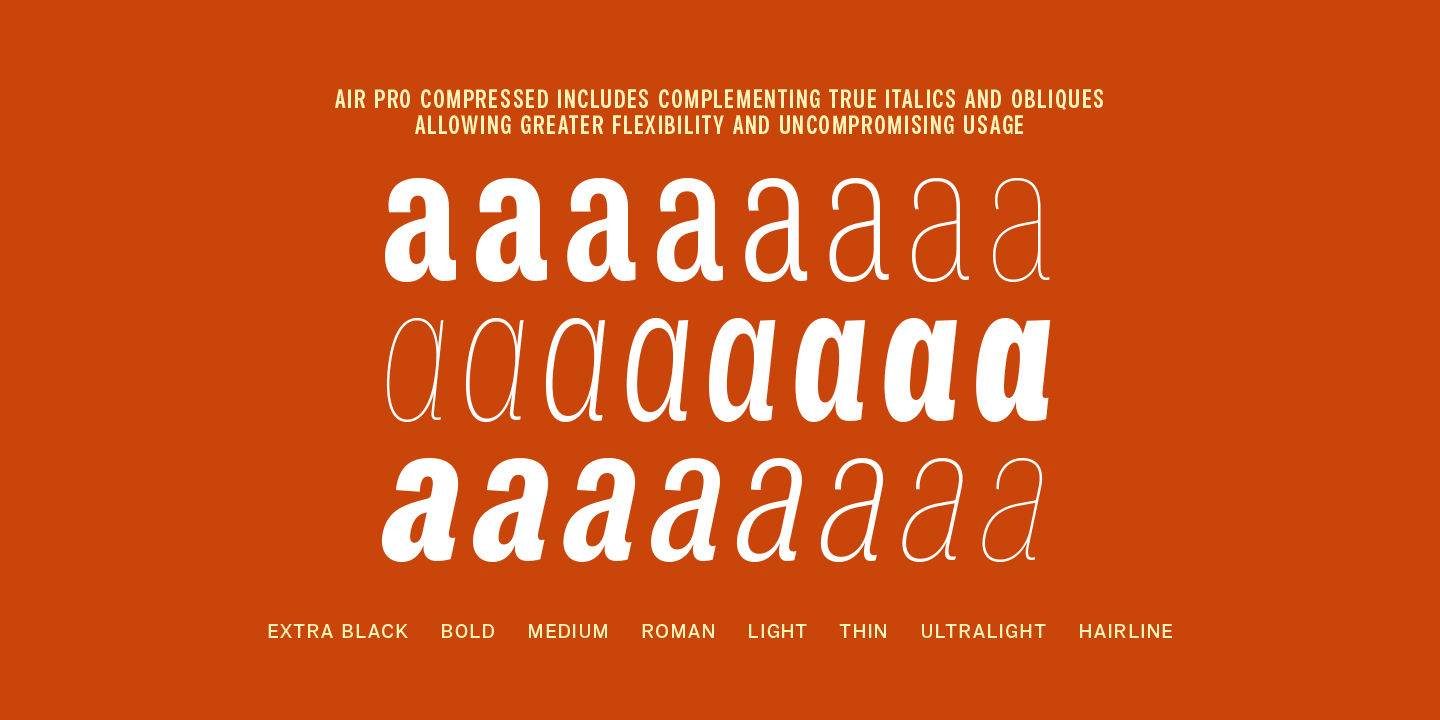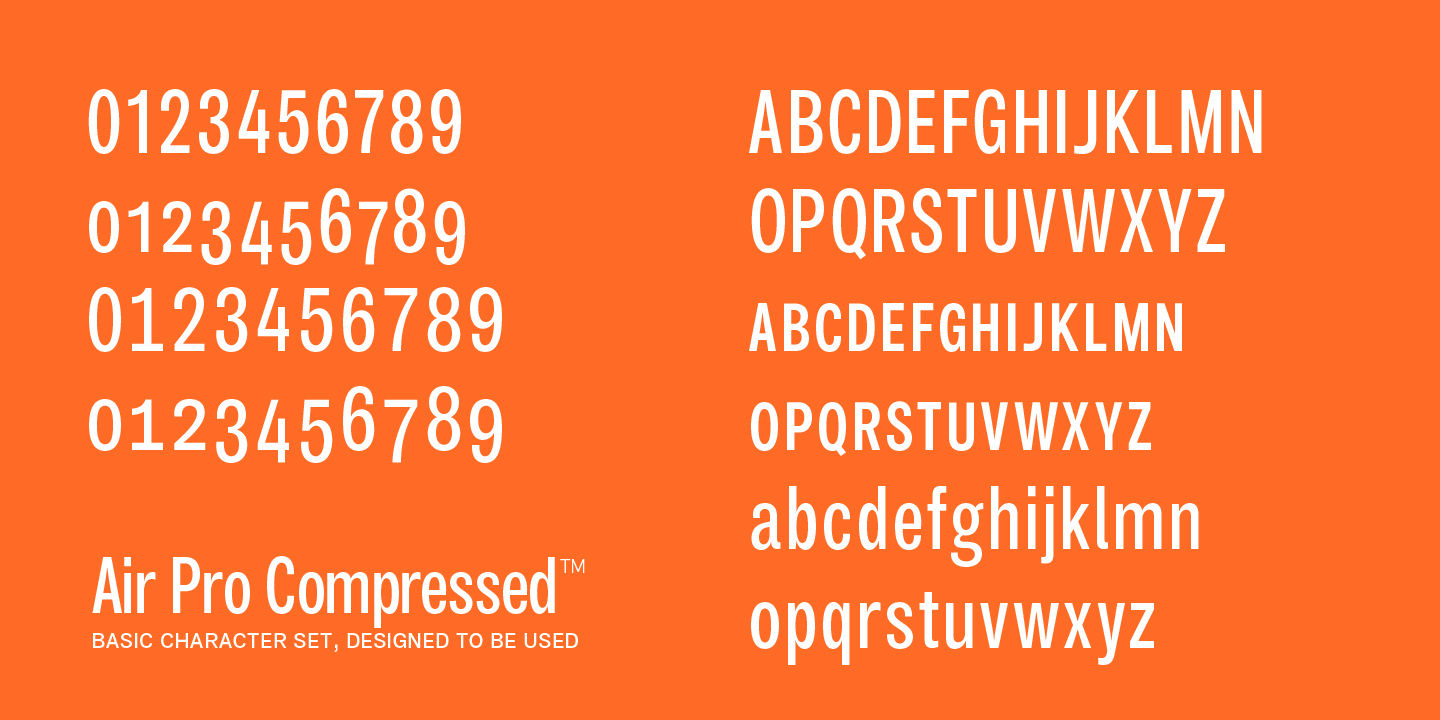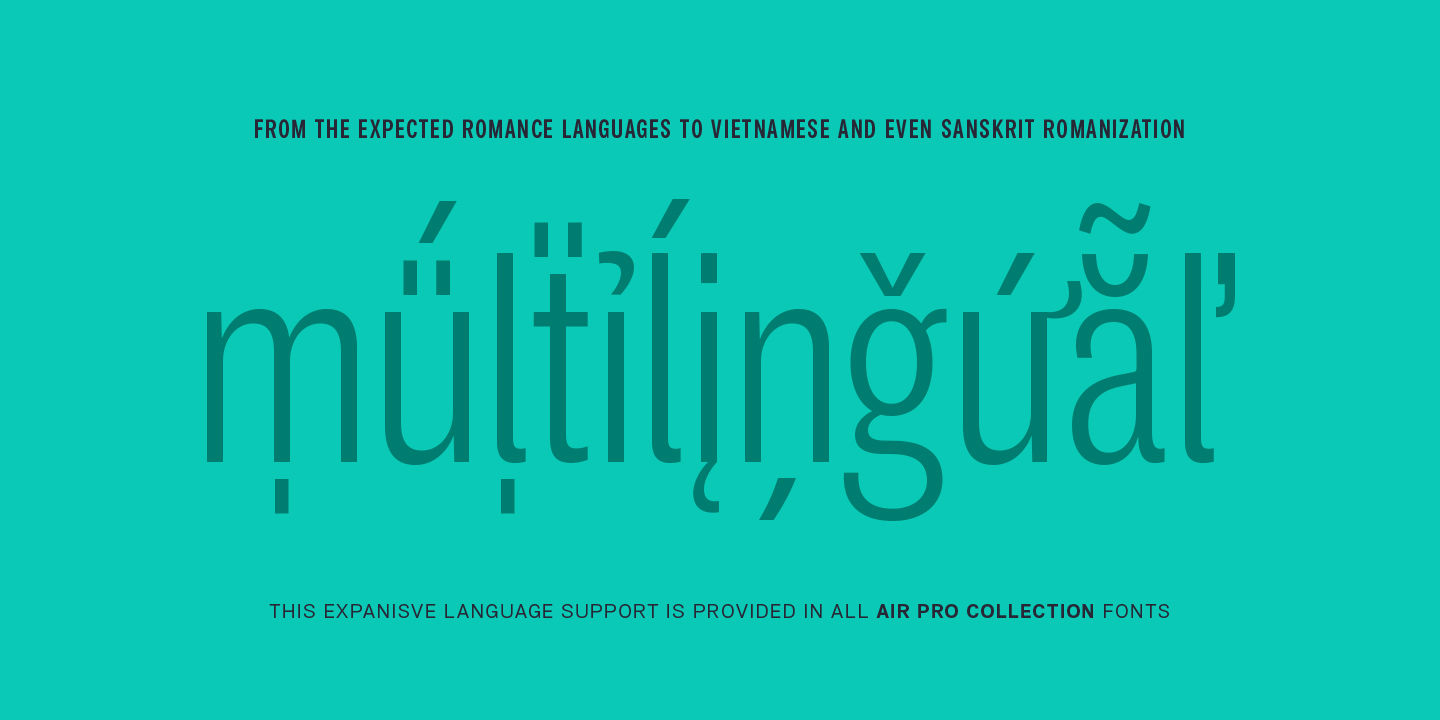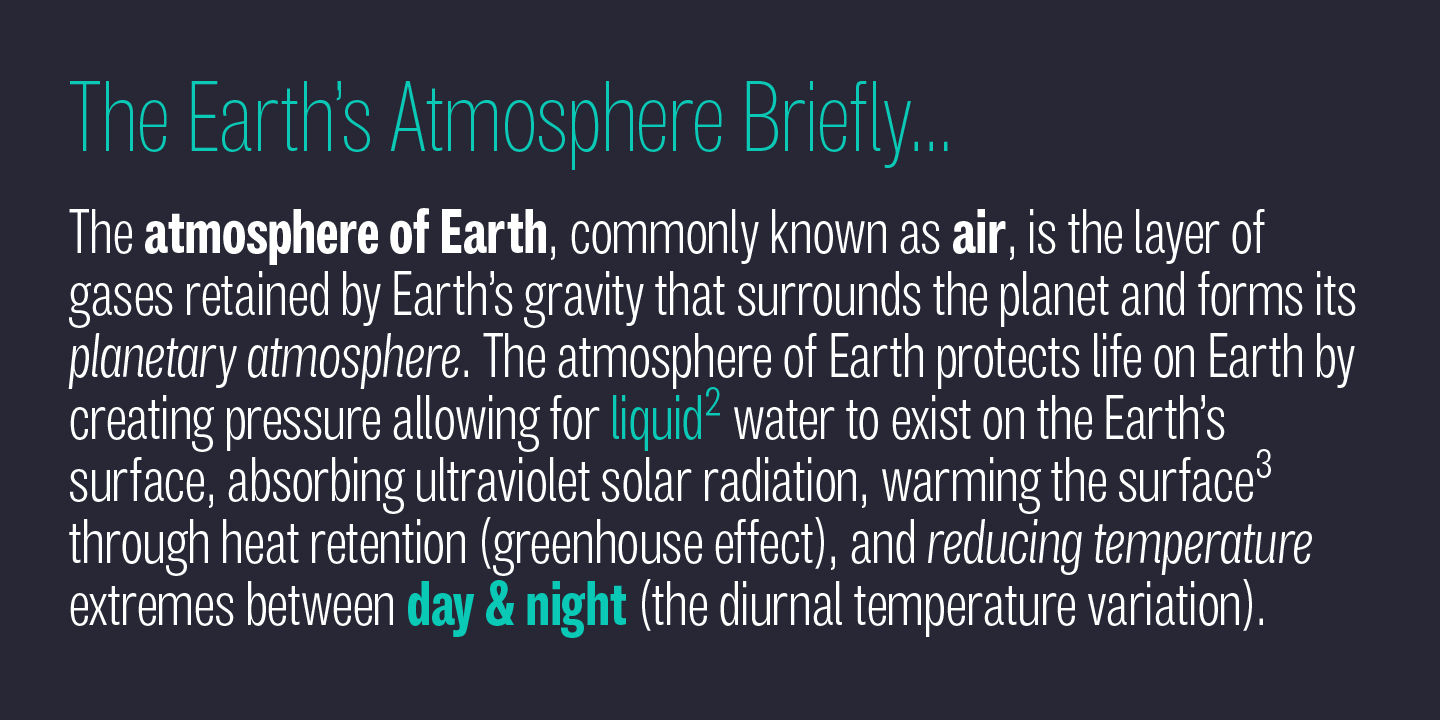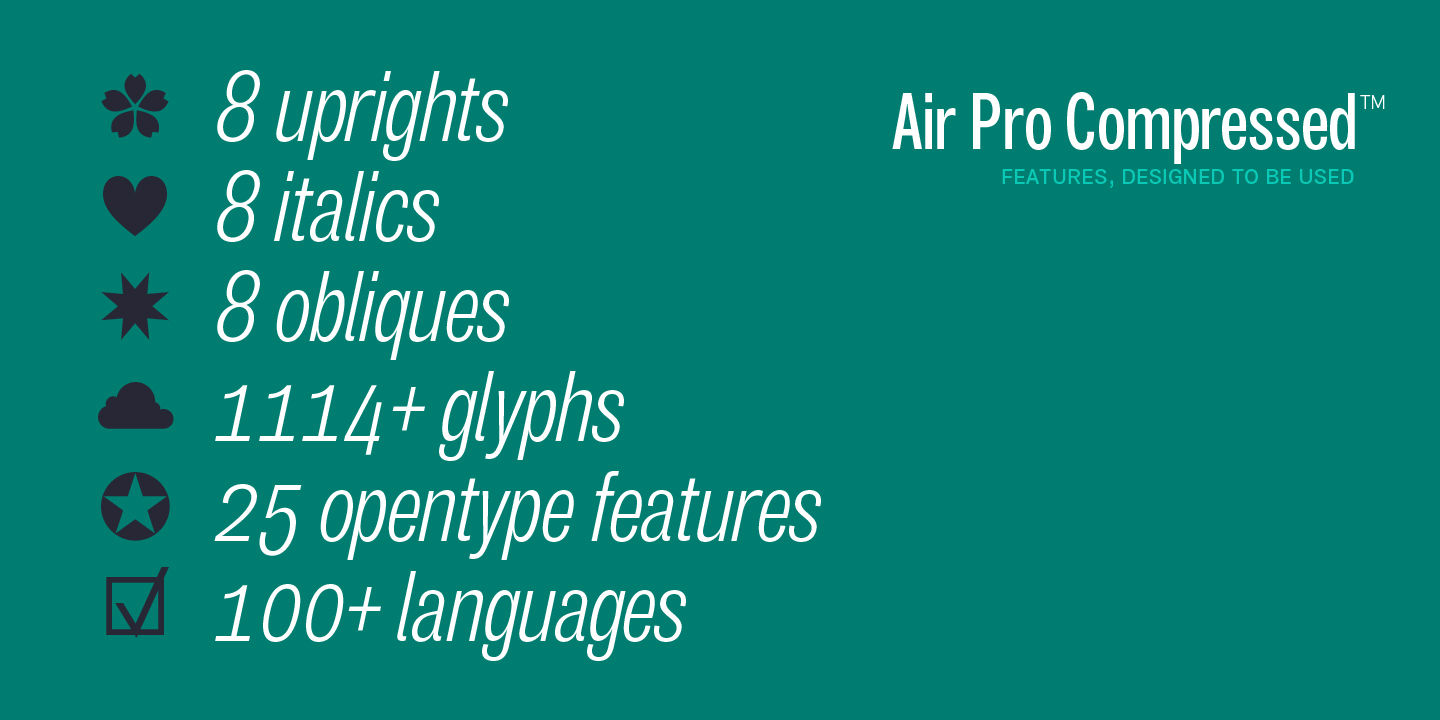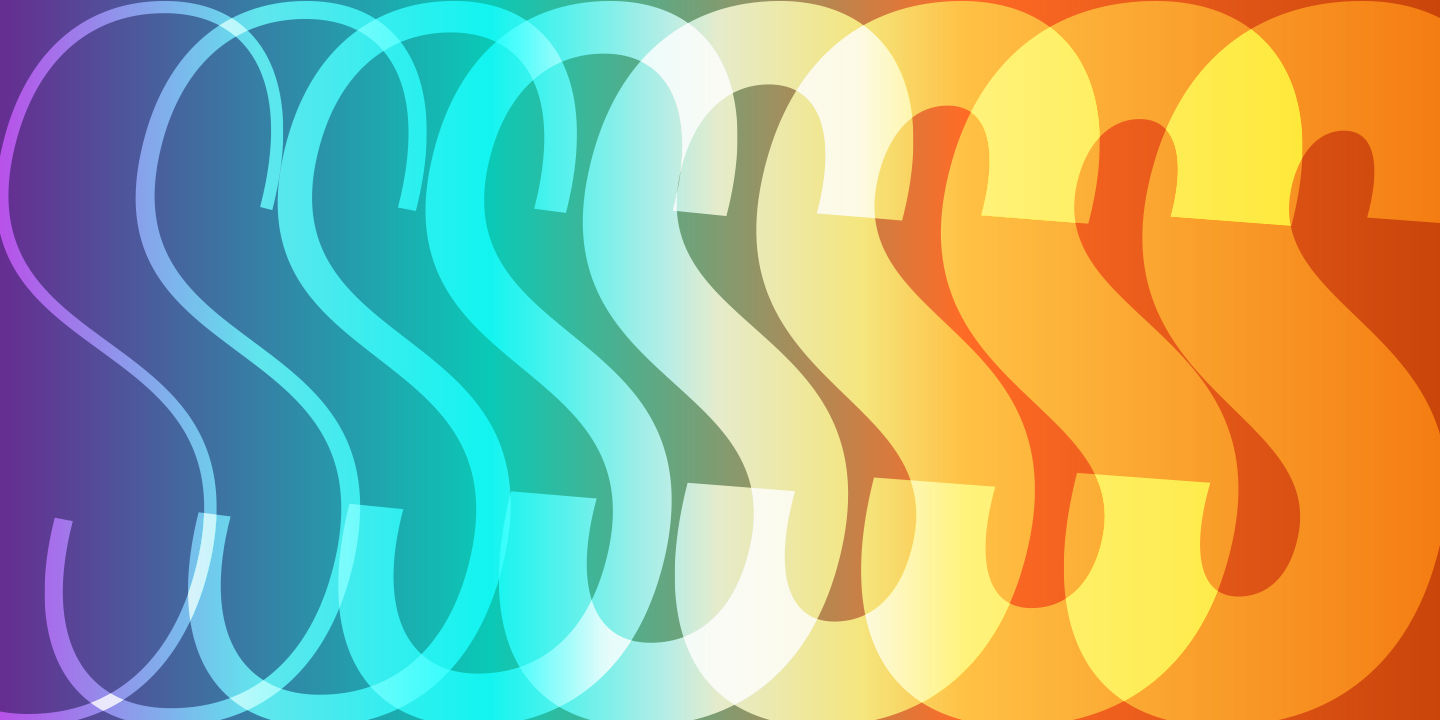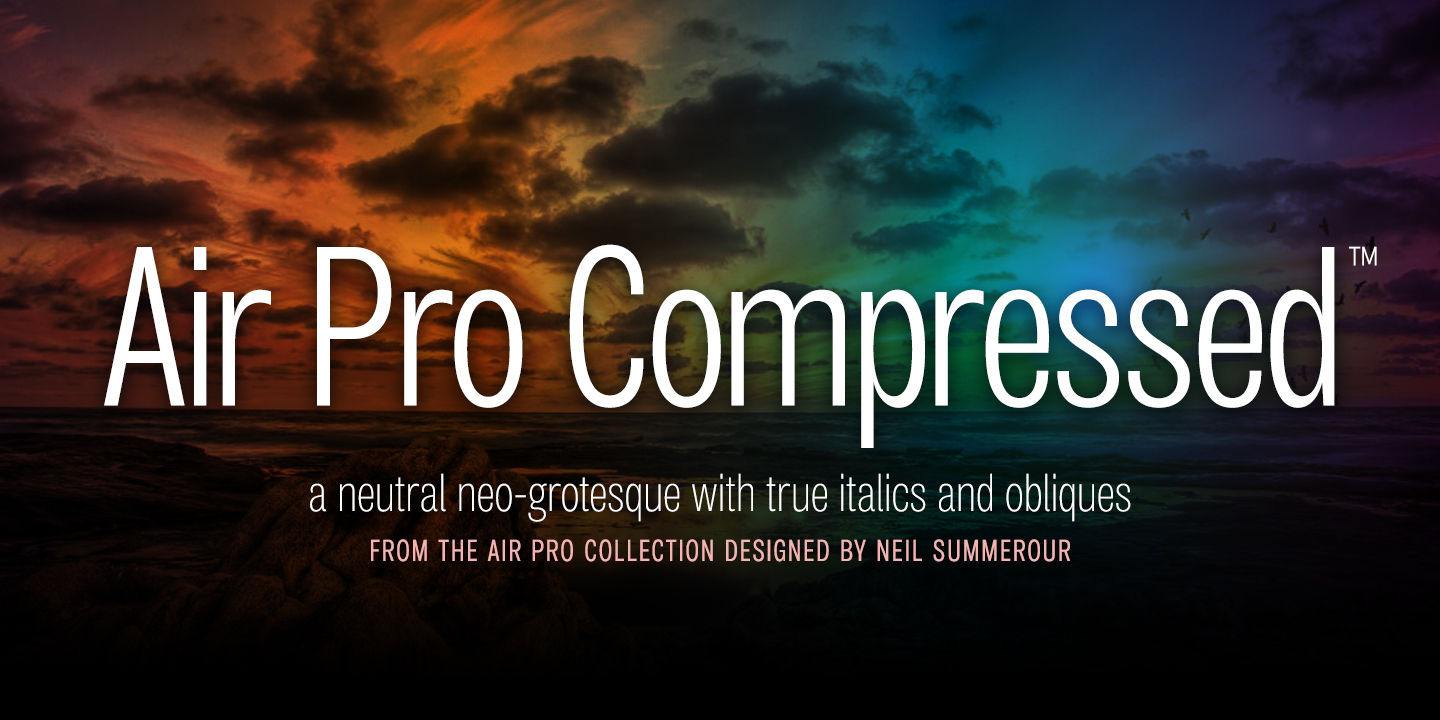
Air Pro Compressed
Small Caps
Small Capssmcp
Fractionsfrac
Superscriptsups
Scientific Inferiorssinf
Ordinalsordn
Case-Sensitive Formscase
Oldstyle Numeralsonum
Tabular Numeralstnum
Stylistic Set 1ss01
Air Pro is a neutral, highly legible neo-grotesque that includes both true italics and obliques. This typeface is refinement and expansion of Air, originally designed in 2011 by Neil Summerour. Heavily influenced by Summerour’s Aaux Next typeface and Akzidenz-Grotesk, the typeface features a very efficient footprint, logical weight options, small caps, expanded numeral sets, extensive language support, and 5 total widths. The new Air Pro Collection focuses on flexibility, accessibility, and usability rather than hinging the design on distracting design traits that could diminish legibility or become dated over time. Besides, even with grotesques, we all need a little fresh air from time to time.